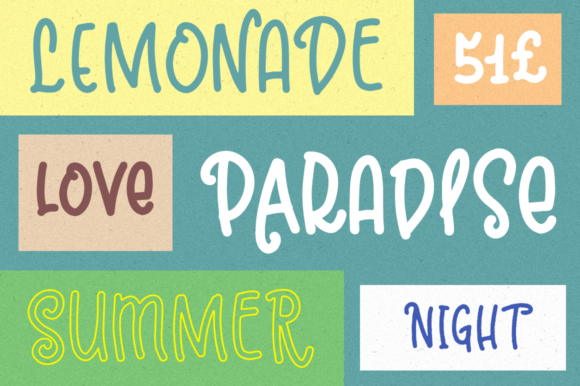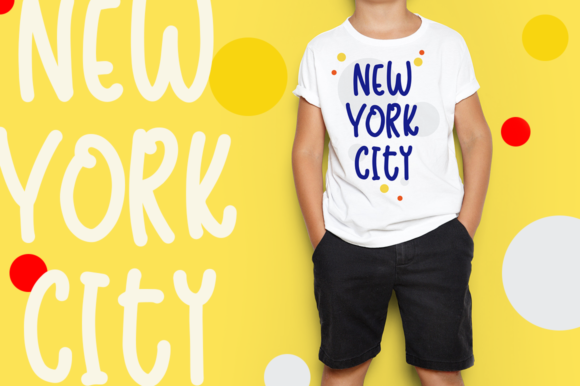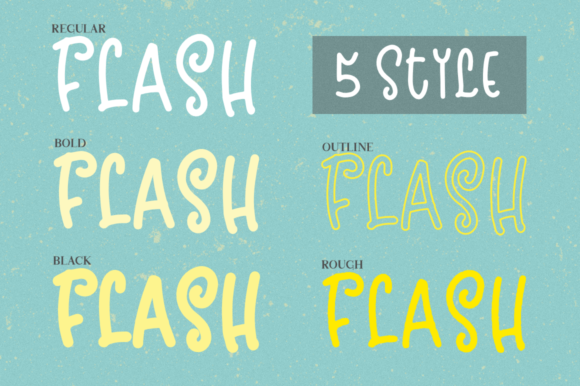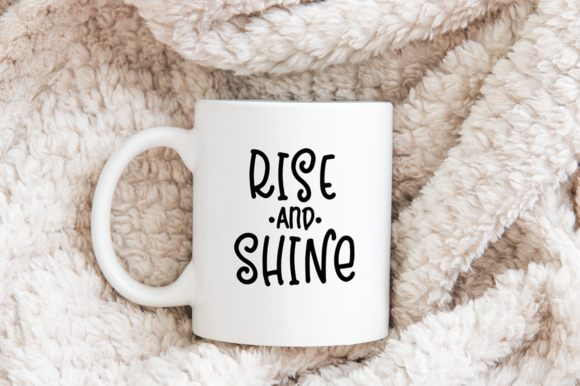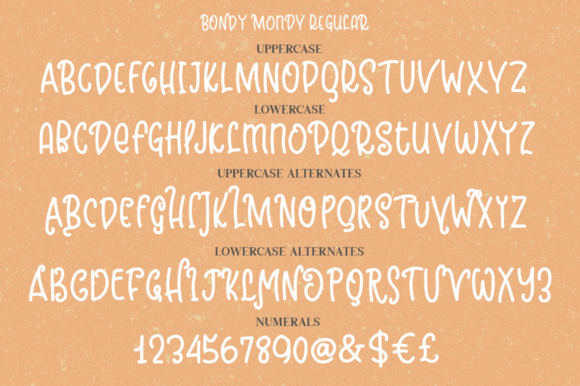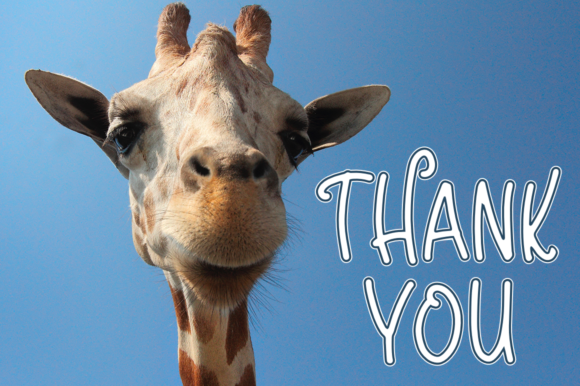
Unleash Your Creativity with the Bondy Mondy Family Font
Have you ever stared at a blank canvas, waiting for inspiration to strike? It’s a familiar feeling for many creatives, but what if you had the perfect tool to spark your imagination? Introducing the Bondy Mondy Family Font, a fresh and unique collection of five styles designed to work in harmony together. Whether you’re a graphic designer, artist, or simply someone who loves to express themselves, this font is about to become your new best friend.
The Bondy Mondy Family Font is a game-changer for designers, offering endless possibilities for creating one-of-a-kind designs. With just one download, you can combine the five styles to create a multitude of unique looks, from elegant and sophisticated to playful and whimsical. The result is a font that’s not only versatile but also incredibly valuable for any project that requires a personal touch.
Bondy Mondy Family Font Key Features
- Font Family: Bondy Mondy Family Font is a complete family of fonts consisting of 6 weights (Thin, Light, Regular, Medium, Bold, and Black) and 3 styles (Upright, Italic, and Small Caps).
- Resolution: Designed to be scalable, Bondy Mondy Family Font can be used at various resolutions without losing its clarity and legibility.
- Unique Characteristics: The font features a distinctive, hand-drawn feel with subtle irregularities and imperfections, giving it a unique and human touch.
Bondy Mondy Family Font Review
Overall, I think the Bondy Mondy Family Font is a solid choice for those looking for a playful, family-friendly font. ✨ The rounded edges and casual feel make it perfect for children’s books, nursery decorations, or any project that needs a lighthearted touch.
The font’s versatility is one of its strengths. ✨ It comes in multiple weights and styles, making it easy to use in various design contexts. From headings to body text, Bondy Mondy Family Font can adapt to your needs.
However, there are some limitations to consider. ⚠️ The font may not be suitable for formal or professional projects, as it can come across as too casual or immature. Additionally, the font’s rounded edges may not be legible at small font sizes.
Here are some pros and cons to keep in mind:
- ✨ Playful and fun, perfect for children’s projects
- ✨ Versatile, with multiple weights and styles
- ⚠️ May not be suitable for formal or professional projects
- ⚠️ May not be legible at small font sizes
Overall, I think the Bondy Mondy Family Font is a great choice for the right project. With its playful feel and versatility, it’s perfect for designers looking to add a lighthearted touch to their work.